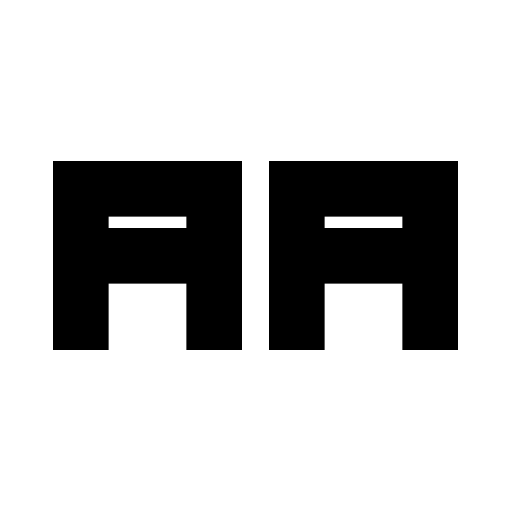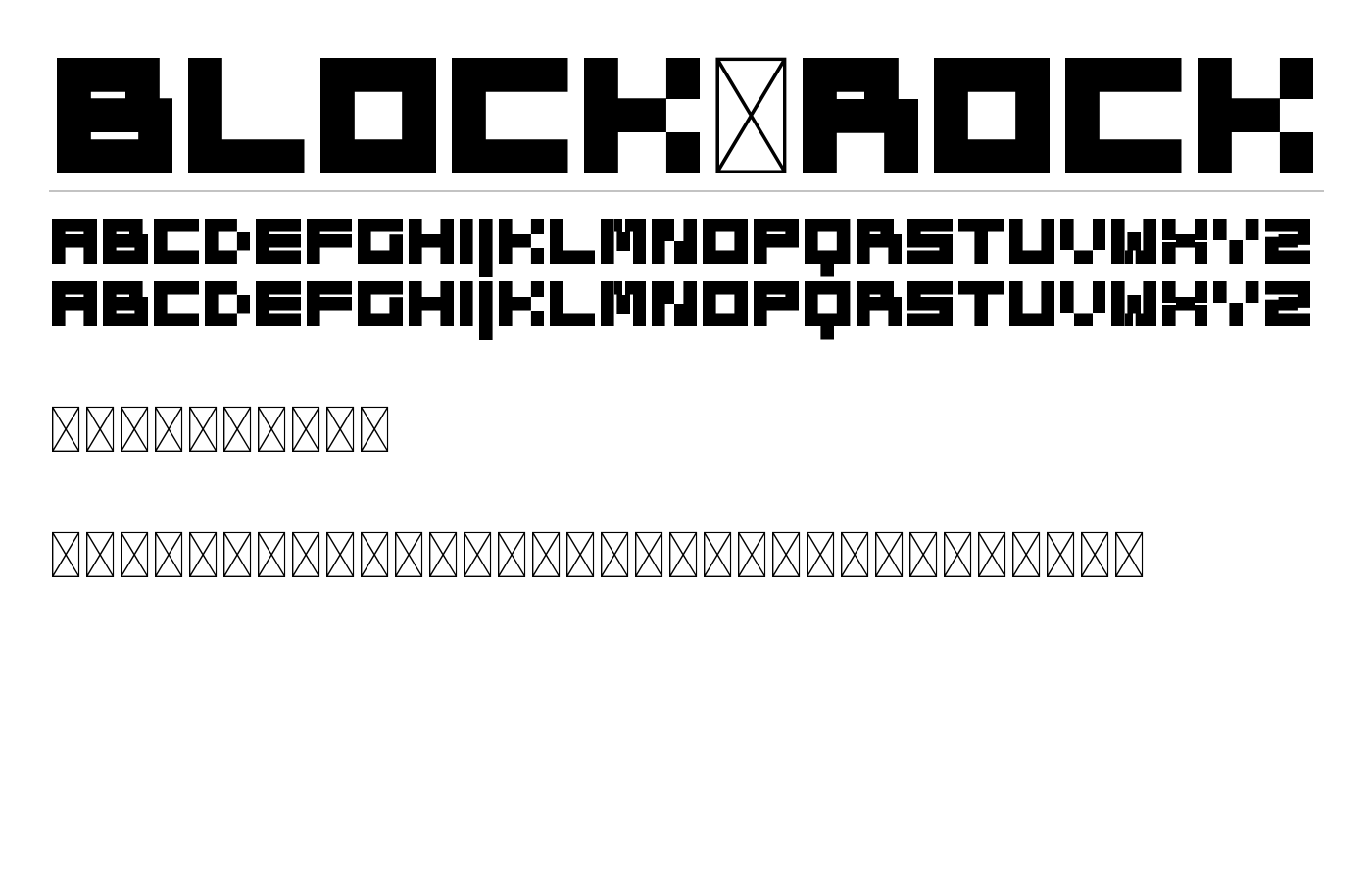
Block-Rock is a bold, geometric sans-serif font characterized by its thick, blocky letterforms and strong rectangular shapes. Its heavy weight and condensed width give it a powerful, industrial feel, making it ideal for headlines, logos, and designs that require a striking, confident presence. This font works especially well for branding or projects that need a modern, sturdy aesthetic with a touch of retro-futuristic style.
Block-Rock Font
About Block-Rock Font